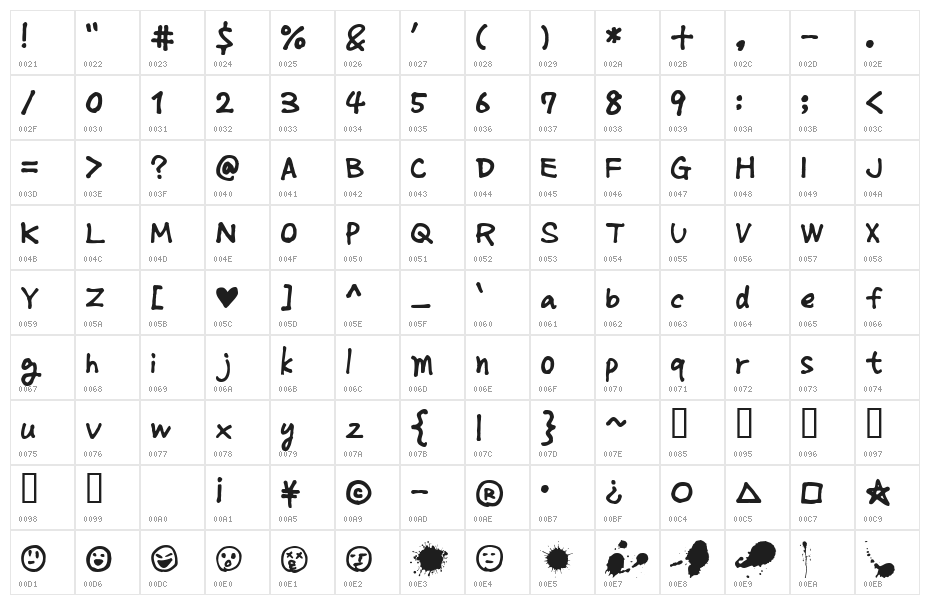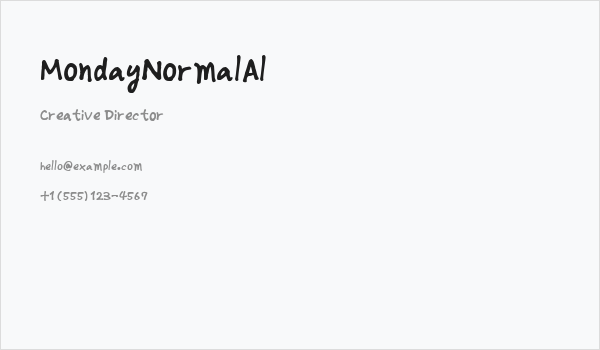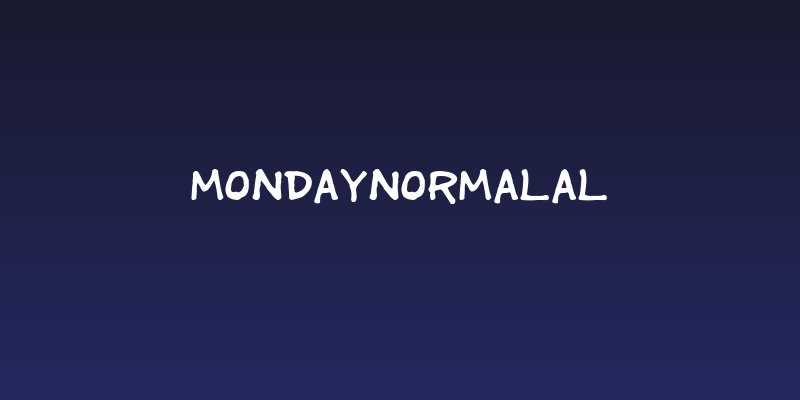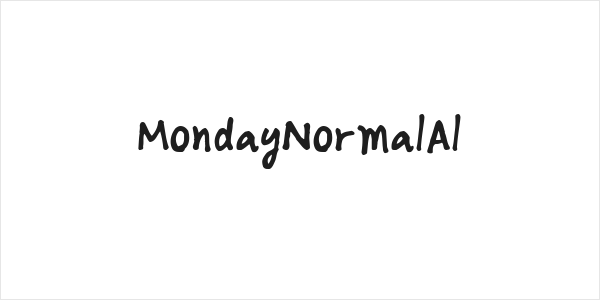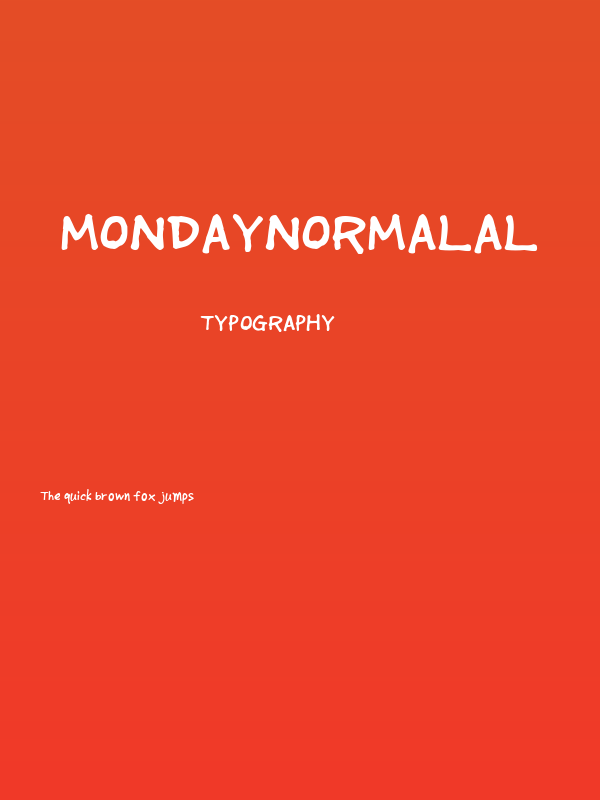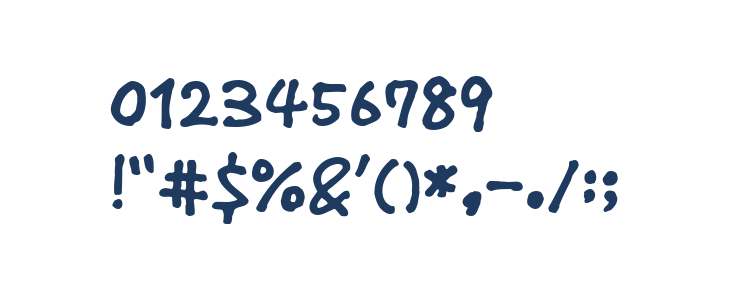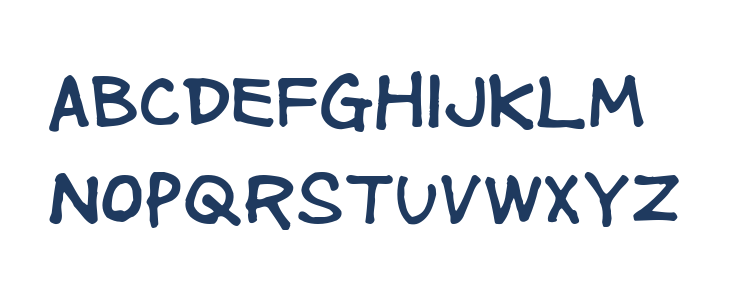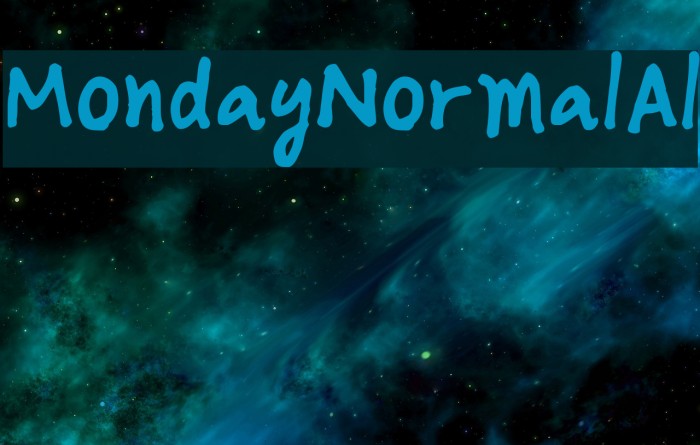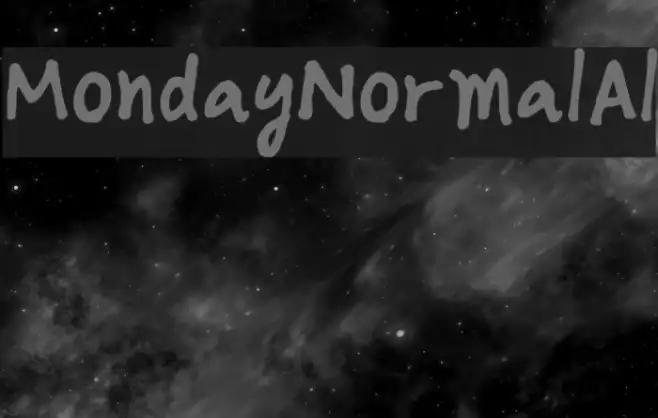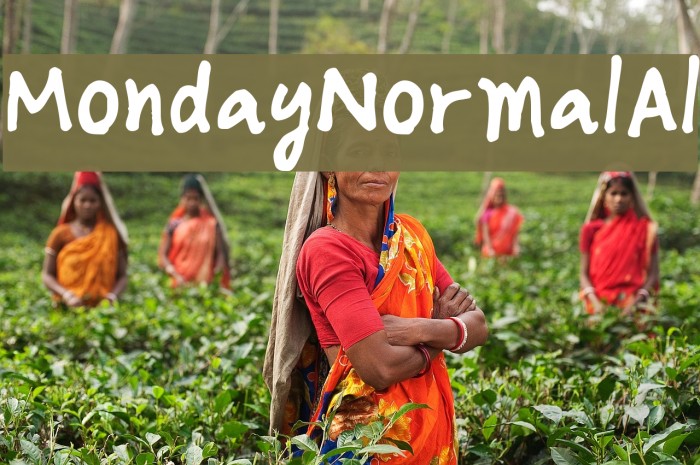
MondayNormalAl Font
MondayNormalAl Description
This font features a playful and casual handwritten style, characterized by its bold and slightly irregular strokes. The letters have a natural flow, mimicking the appearance of hand-drawn text with a marker or brush. The uppercase and lowercase letters maintain a consistent style, with rounded edges and a friendly, approachable look. Numbers and special characters are designed to match the overall aesthetic, making them suitable for informal and creative projects. The font's unique charm lies in its imperfect, organic shapes, which add a personal touch to any design.
| Proposed Projects | Ideal for greeting cards, children's books, playful branding, and social media graphics. |